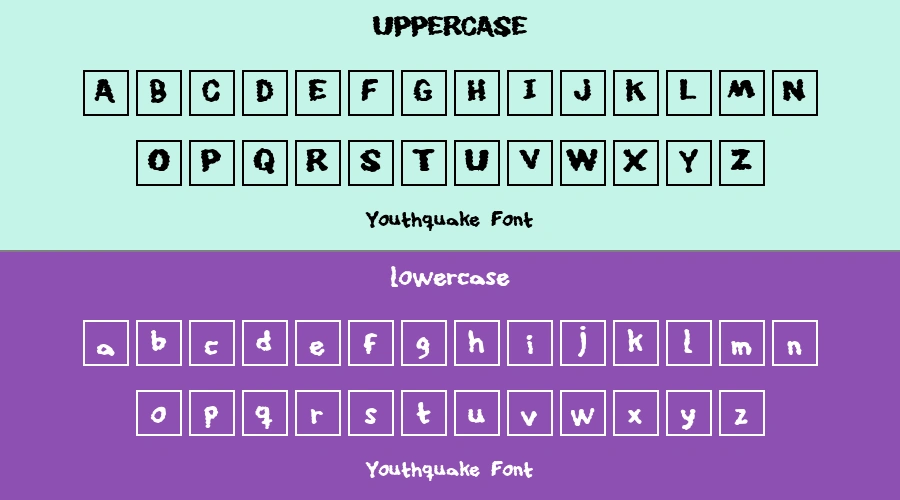
About Youthquake Font
Designed with precision, Youthquake Font merges organic curves with durability in every character. This versatility makes it particularly effective for scientific papers, where sophistication and refinement directly impact communication quality. Each letterform demonstrates meticulous craftsmanship.
Technical excellence shines through elements like refined proportions and standard ligatures, enhancing typographic versatility. In heritage publications settings, Youthquake Font proves its worth through superior emotional response. The thoughtful execution of ascender height and cultural relevance ensures professional results.